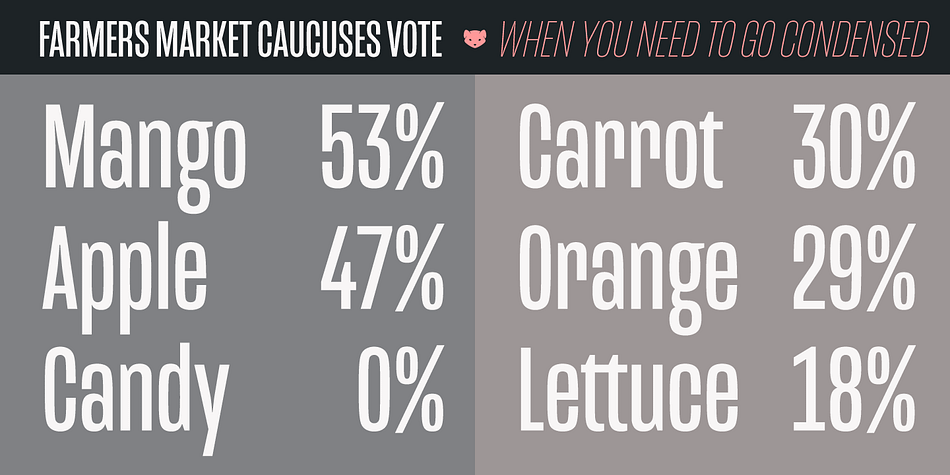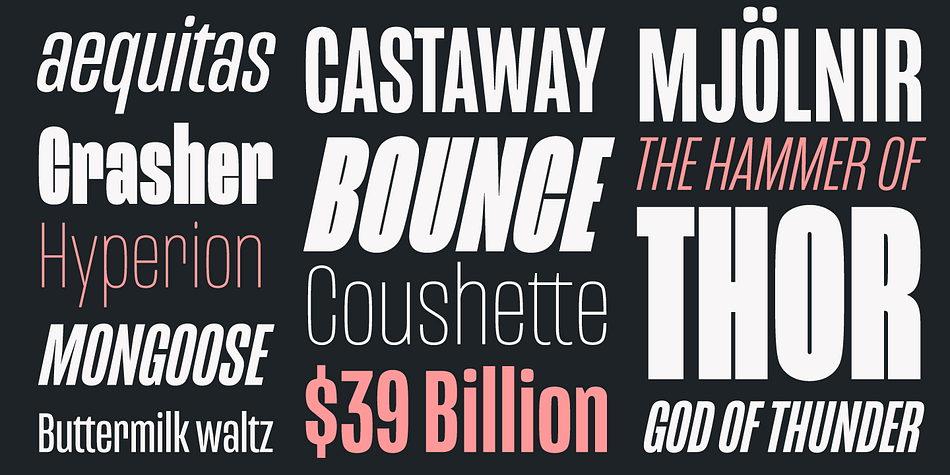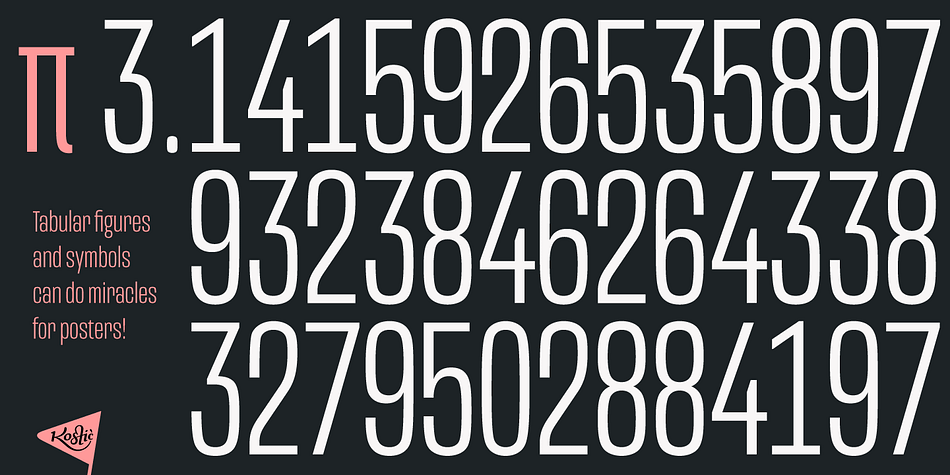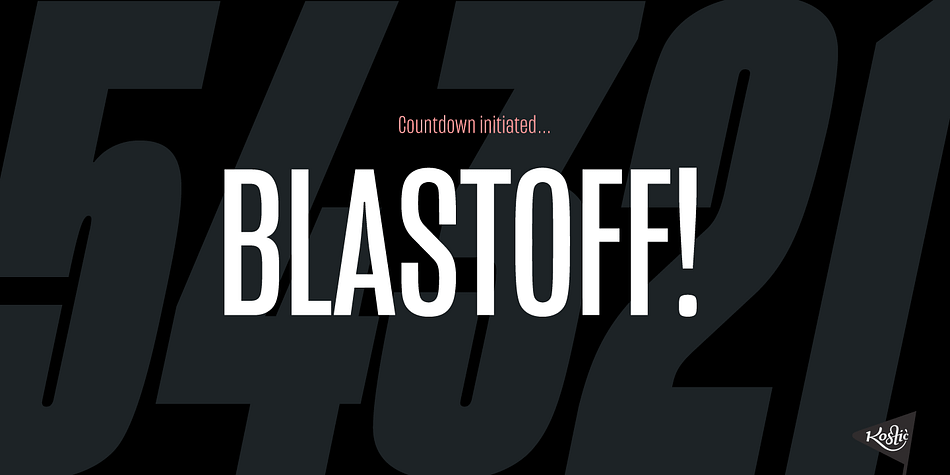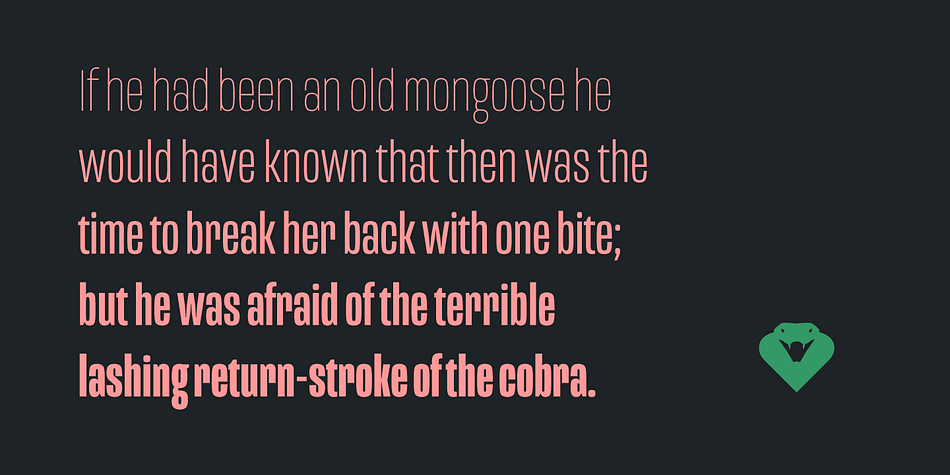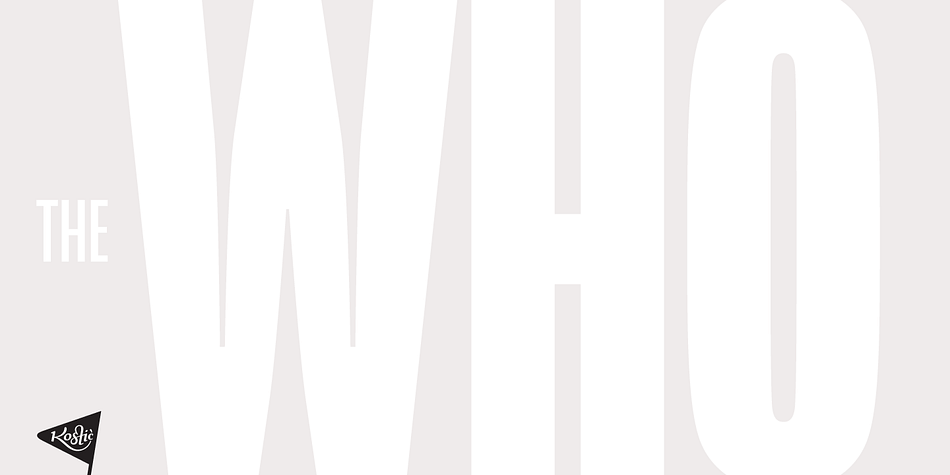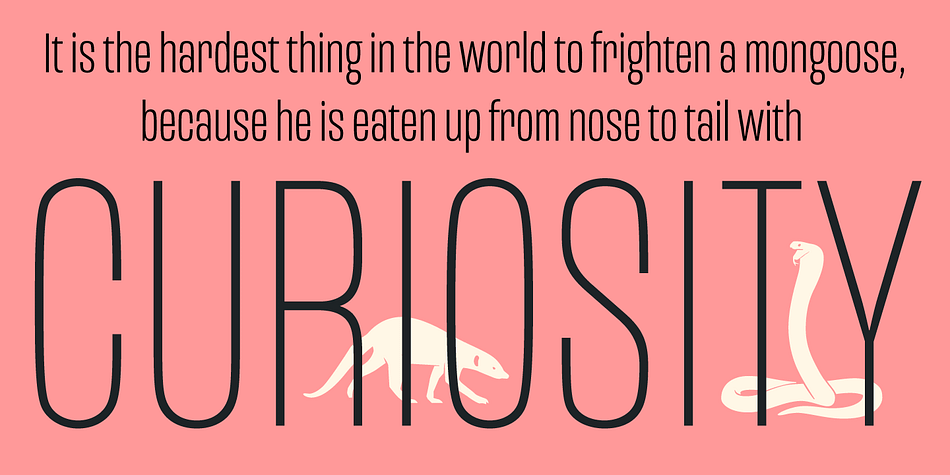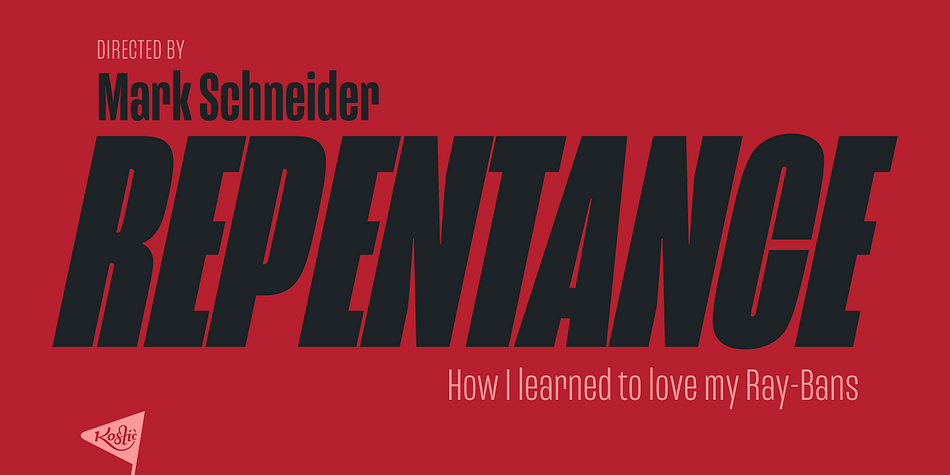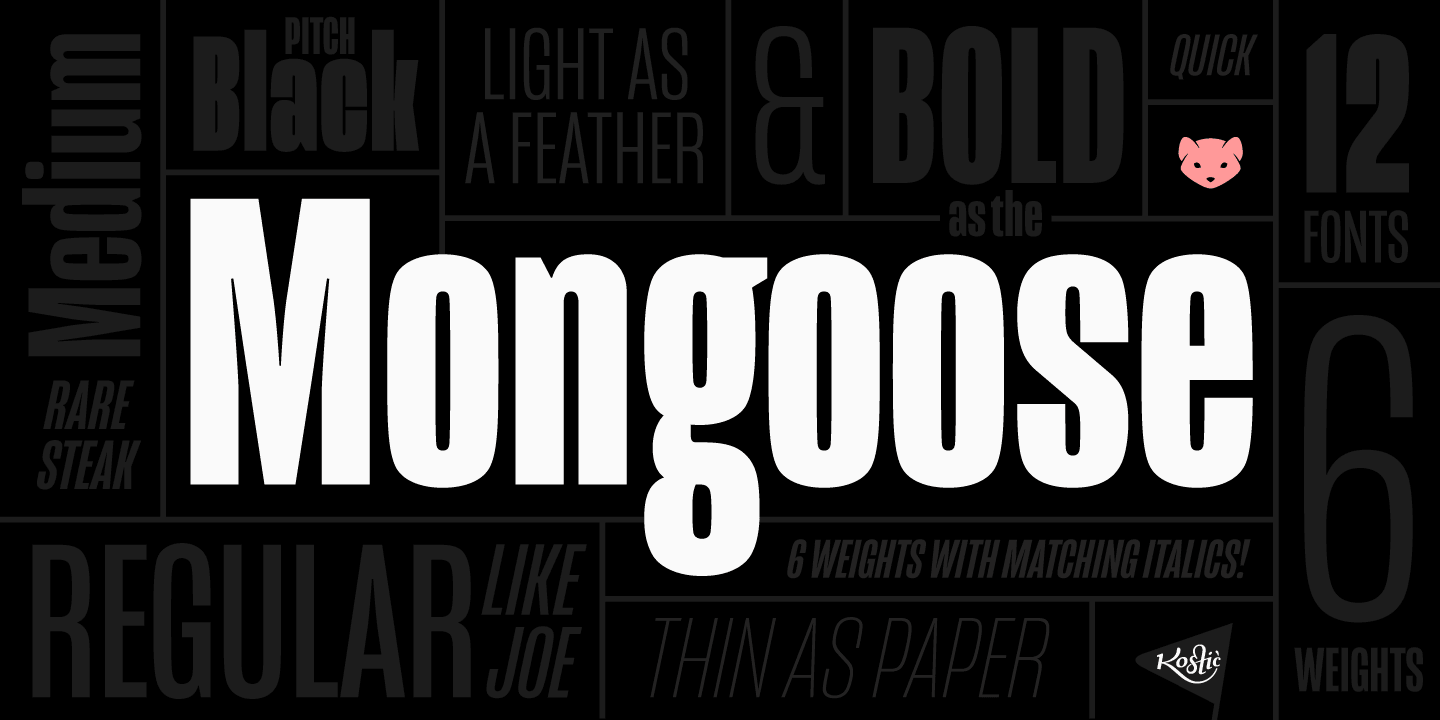
Designed by Nikola Kostić, Mongoose is a sans serif font family. This typeface has twelve styles and was published by Kostic Type Foundry.
Mongoose is a condensed sans serif, made for posters, headlines and logotypes.
Caps and x-height were made to match the ultra wide Briller, so it could be fun to combine these two highly contrasting type families.
Thanks to the OpenType features, figures come in both tabular and proportional widths, fractions and superior/inferior positions.